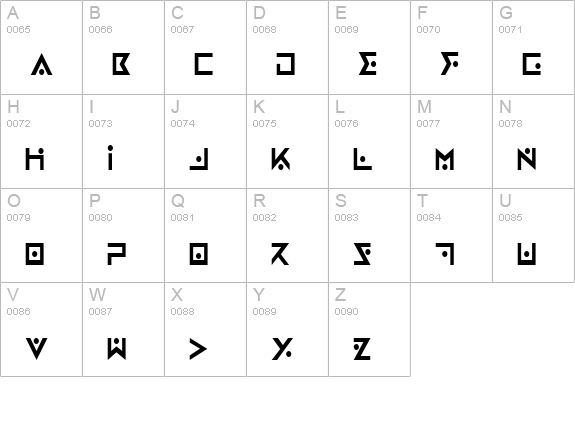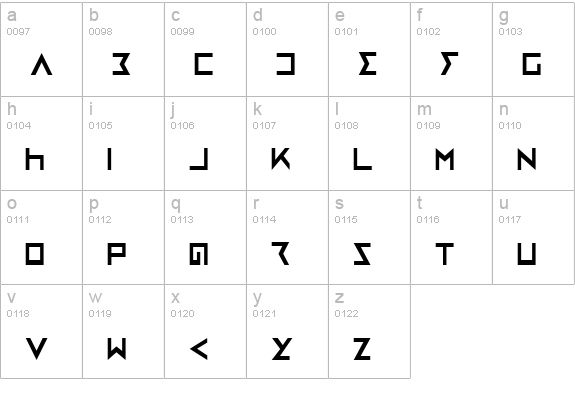
Iron Cobra Condensed is a distinctive, condensed-width variant in the Iron typeface family \xE2\x80\x94 well suited to design and typography projects.
Iron Cobra Condensed font is a sleek and modern typeface that exudes strength and power. With its sharp edges and bold design, this font is perfect for creating attention-grabbing headlines, logos, and branding materials. The condensed style adds a sense of sophistication and elegance to any design project. What makes Iron Cobra Condensed font even more appealing is that it is available for free download at FontsMarket.com. This means you can easily access this striking font and use it in your personal or commercial projects without any cost. Don't miss out on the opportunity to enhance your designs with this versatile and impactful typeface. Download Iron Cobra Condensed font today and take your projects to the next level!